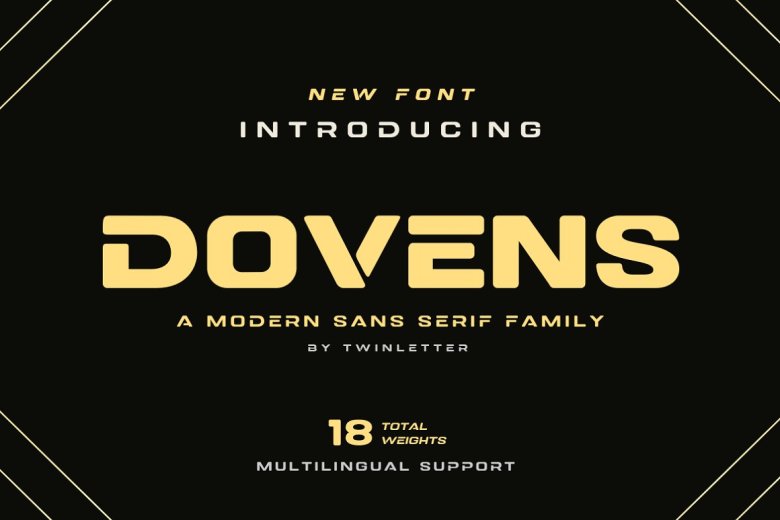
Dovens Font Family
Dovens Font
Dovens Font is the freshest of our sans serif fonts added recently in the collection. This evolutionary typeface is specifically for providing elegance and an ethnic touch to your creations. This collection comprises 18 complex styles, which are suitable for divers projects.
This font offers distinctive characteristics to enhance beauty and personality aspects such as film title, lettering, large blocks of text, logo, poster, and so on. It has all the tools that one needs to make beautiful graphics – and even better; leave a lasting impact on the target market.
Dovens Sans Serif Font Family